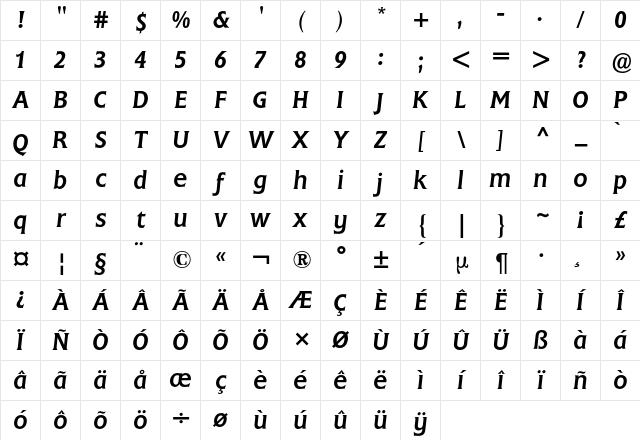
Complete Flange BQ Regular glyph index. Displaying only characters natively supported by Flange BQ Regular font.
Flange BQ is a composed and adaptable typeface that performs quietly and consistently across a wide range of design contexts.